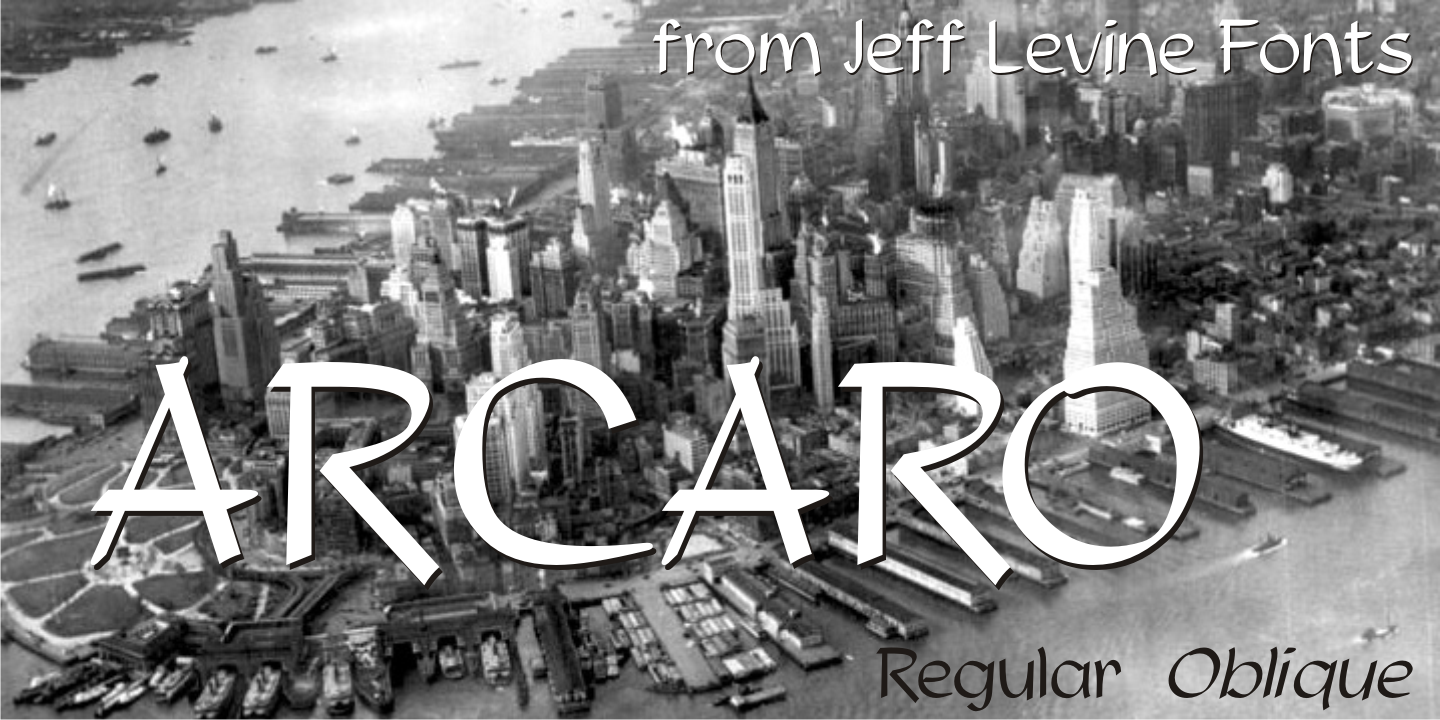
Arcaro
There are times when a typeface is used so consistently that it becomes somewhat synonymous with the subject it's used in.
The opening and end titles for the ABC-TV series 'Naked City” (1959-1963) were set in a bold version of a popular font emulating the look of calligraphic hand lettering.
Arcaro JNL is a somewhat lighter and slightly modified version of this typeface and is offered in both regular and oblique versions.
The name Arcaro comes from one the regular characters in this superbly-written police drama, Detective Frank Arcaro.